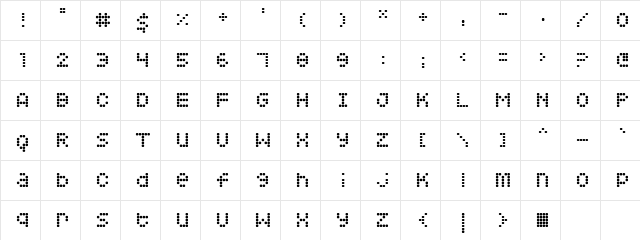
Squarodynamic 08 Regular Font Preview
Squarodynamic 08 Regular
Design Context for Squarodynamic 08 Typeface
Squarodynamic 08 is a composed and adaptable typeface that performs quietly and consistently across a wide range of design contexts.